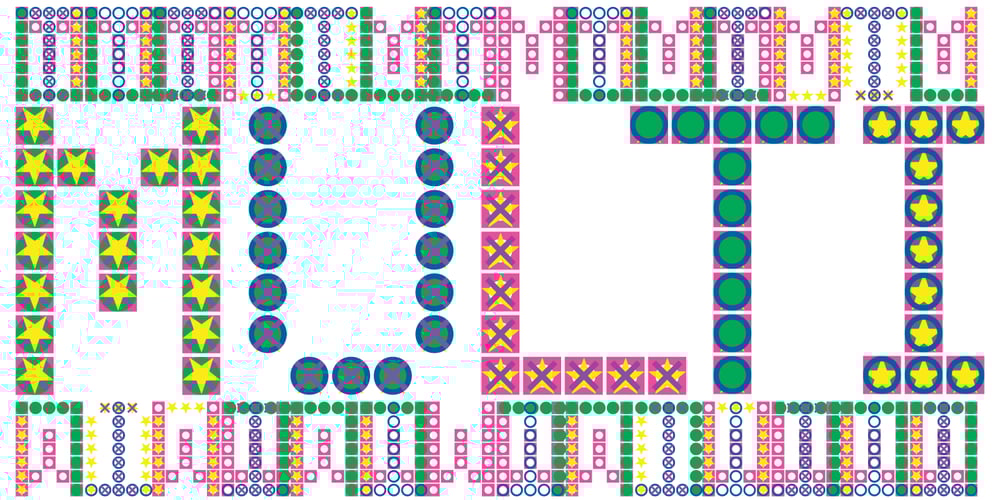
LED pixel Font Family was designed by Manuel Viergutz and published by TypoGraphicDesign. LED pixel contains 65 styles and family package options. The typeface LED pixel is designed from 2020 for the font foundry Typo Graphic Design by Manuel Viergutz.The font system (sans-serif, slab serif, small caps & unicase) of the display typeface is inspired in the past and present.60 + 1 (icons) font-styles (Circle, Circle Outline, Cross, Hex, Hex Outline, Line, Square Cross, Square Half 1, Square Half 2, Square Outline, Square Circle, Square Star, Star, Triangle × 4) with 903 glyphs (Adobe Latin 3) incl. 300+ decorative extras like icons, arrows, dingbats, emojis, symbols, geometric shapes, catchwords, decorative ligatures (type the word #LOVE for ❤️ or #SMILE for